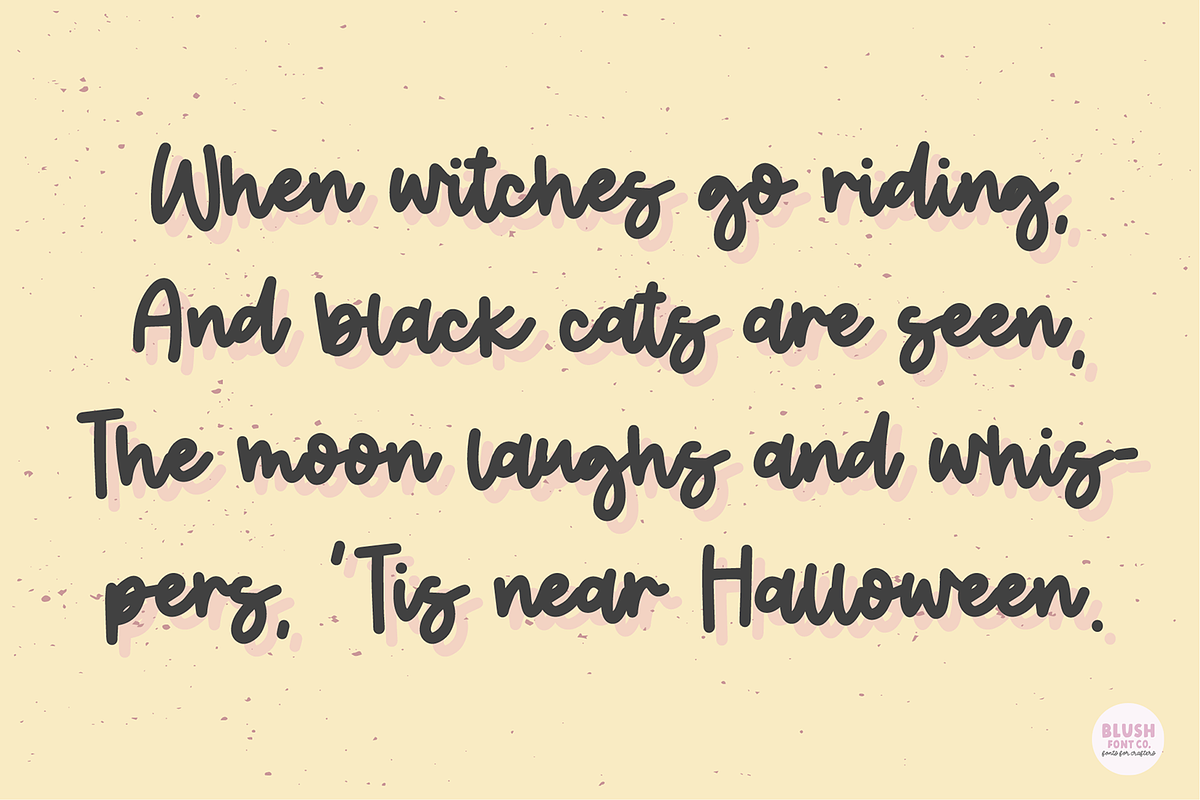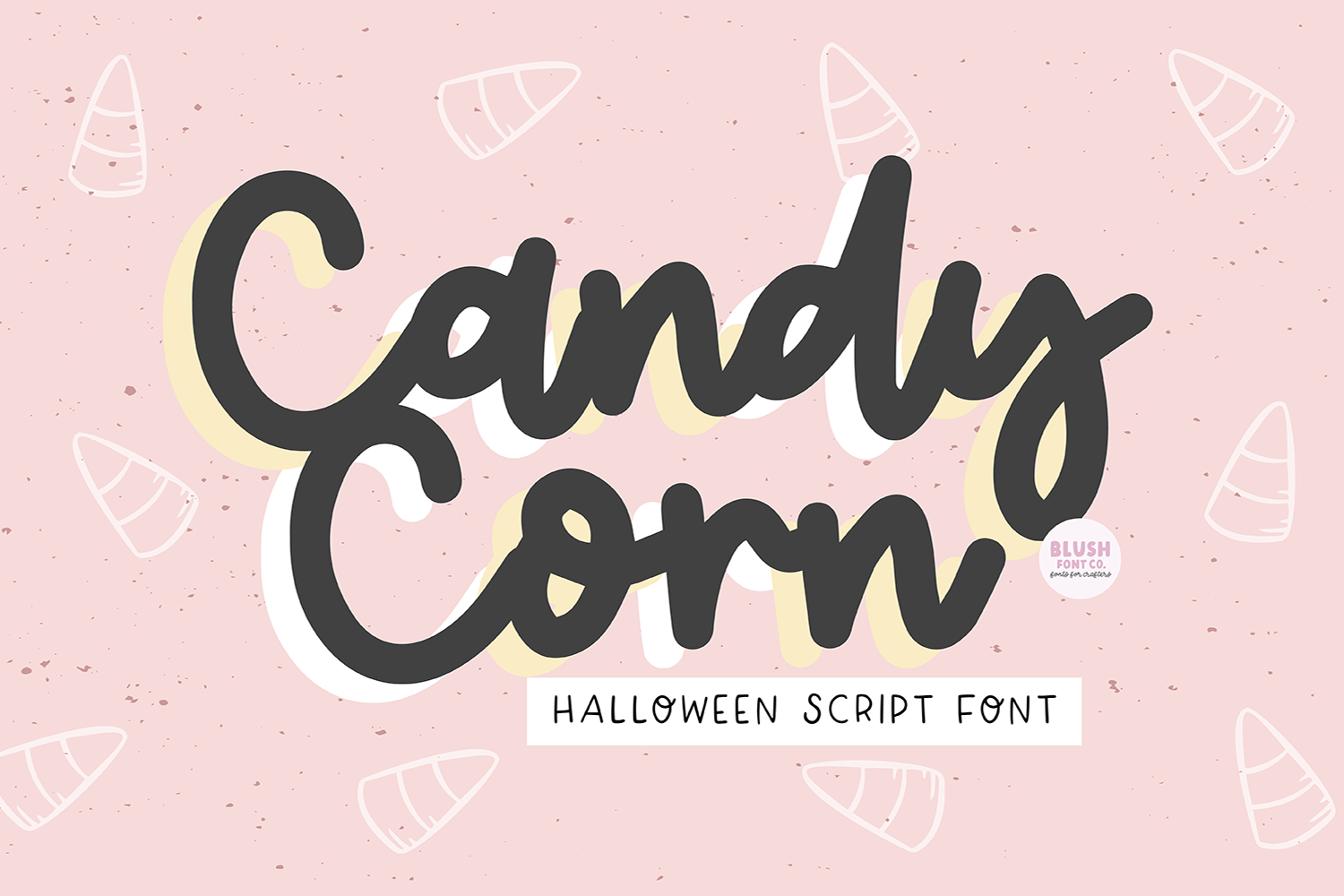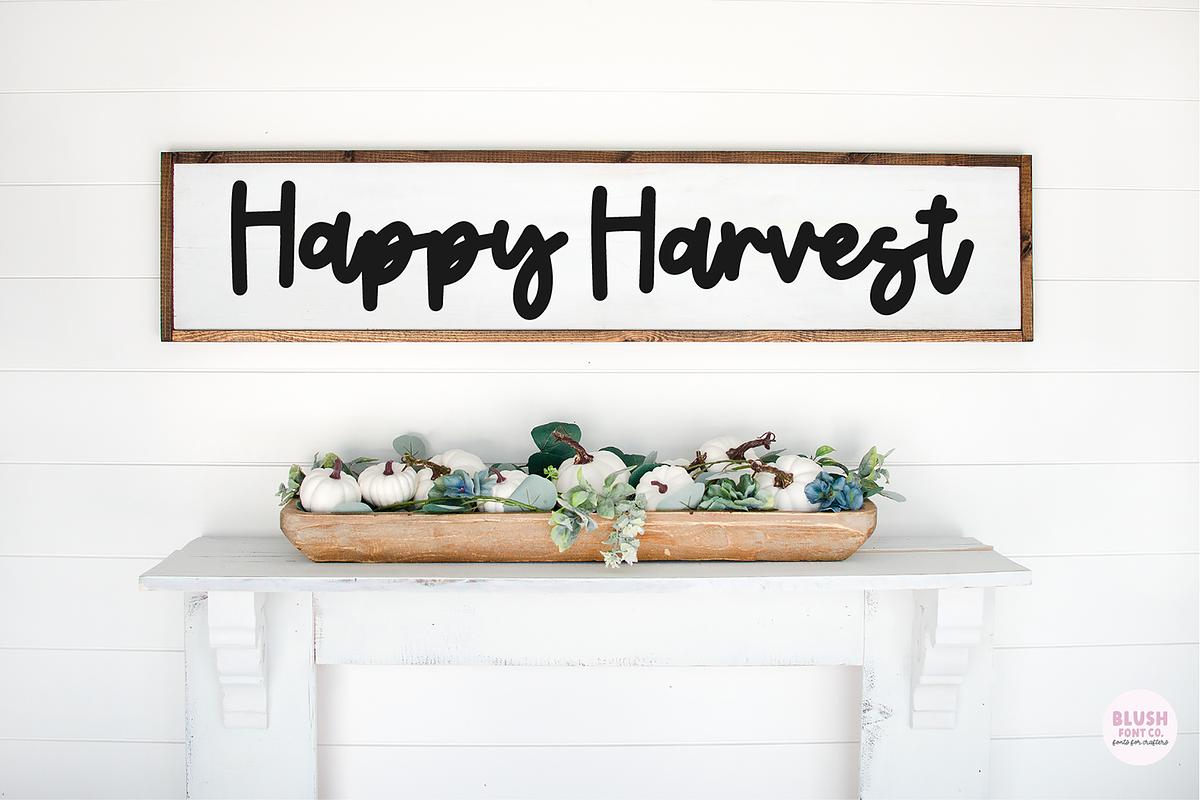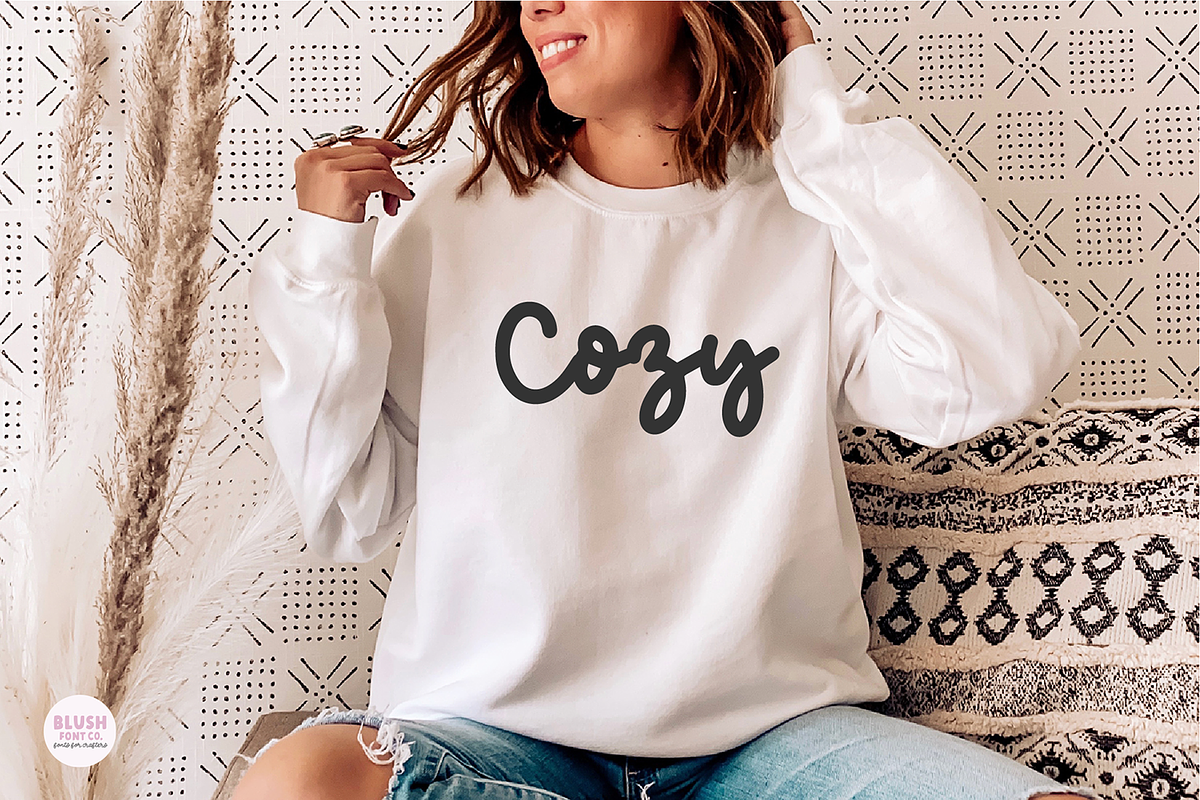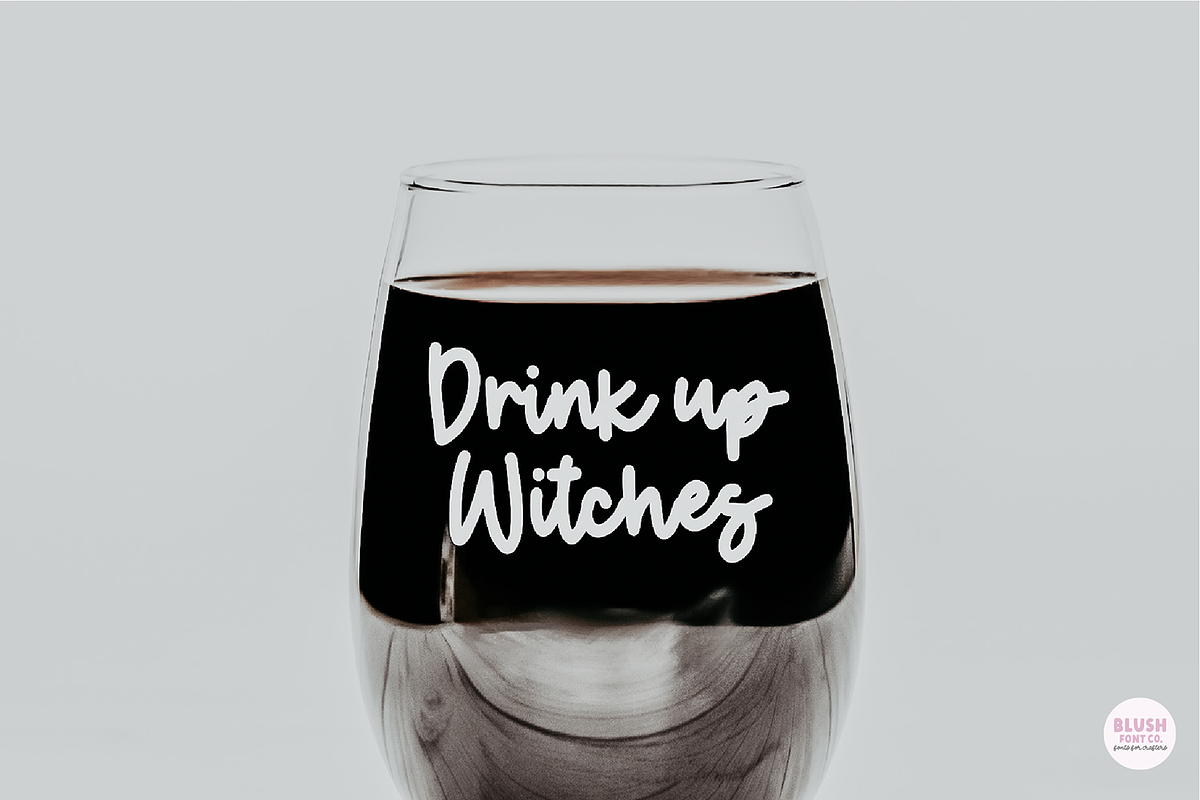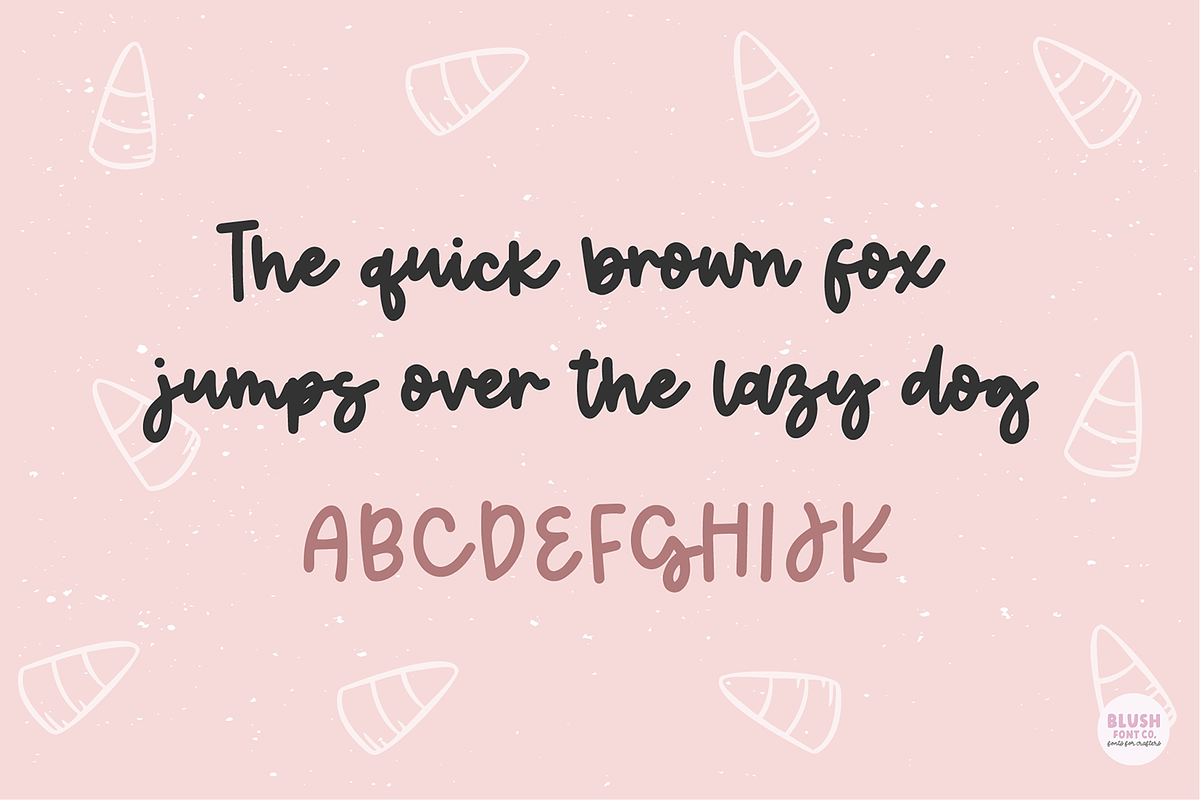
CANDY CORN Halloween Script Font
"Candy Corn"
A Halloween Script Font
This is an installable font that will work great with your Halloween party invitations, web graphics, and other Halloween decor.
This font comes with upper and lowercase letters, numbers, and basic punctuation.